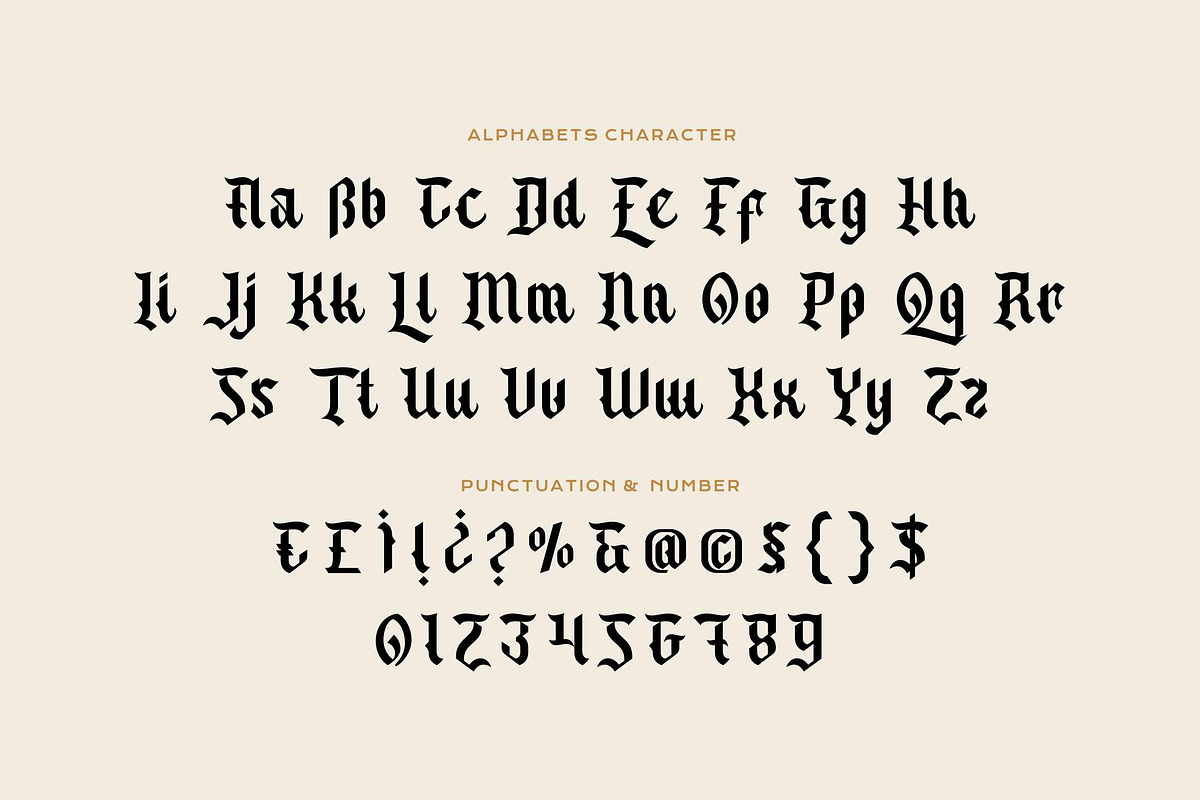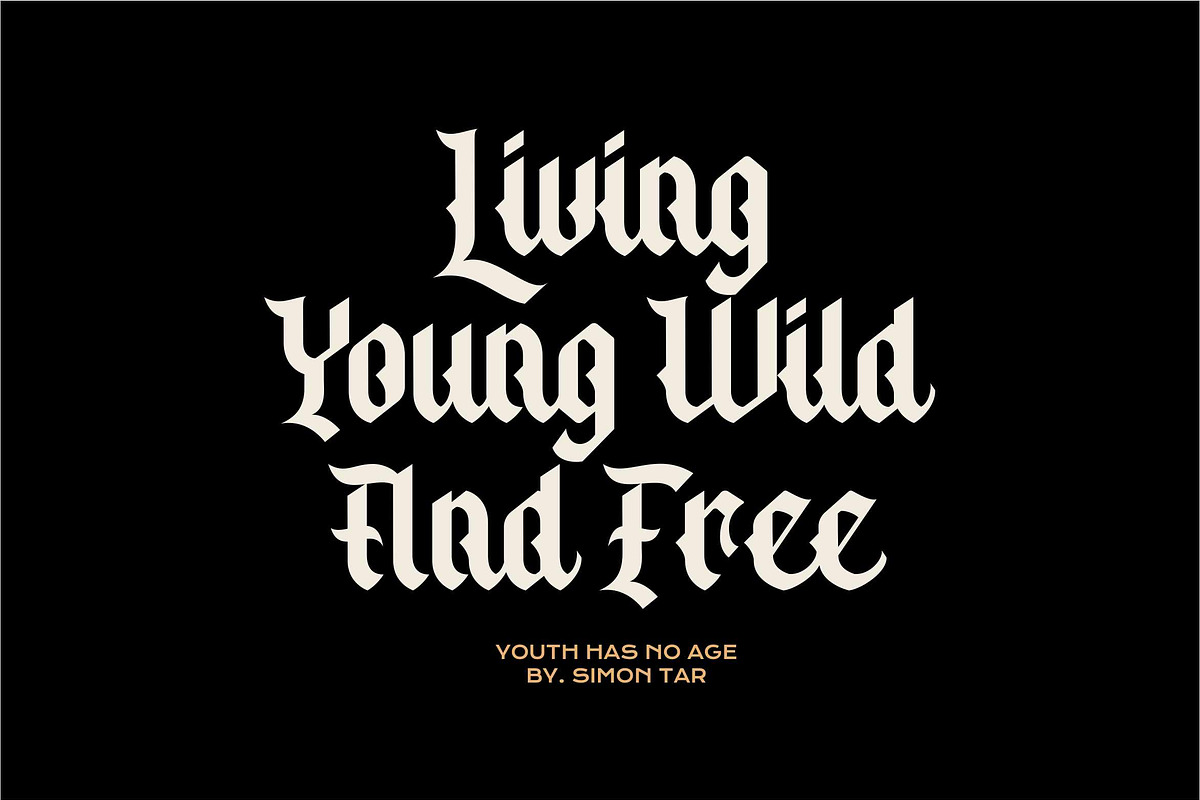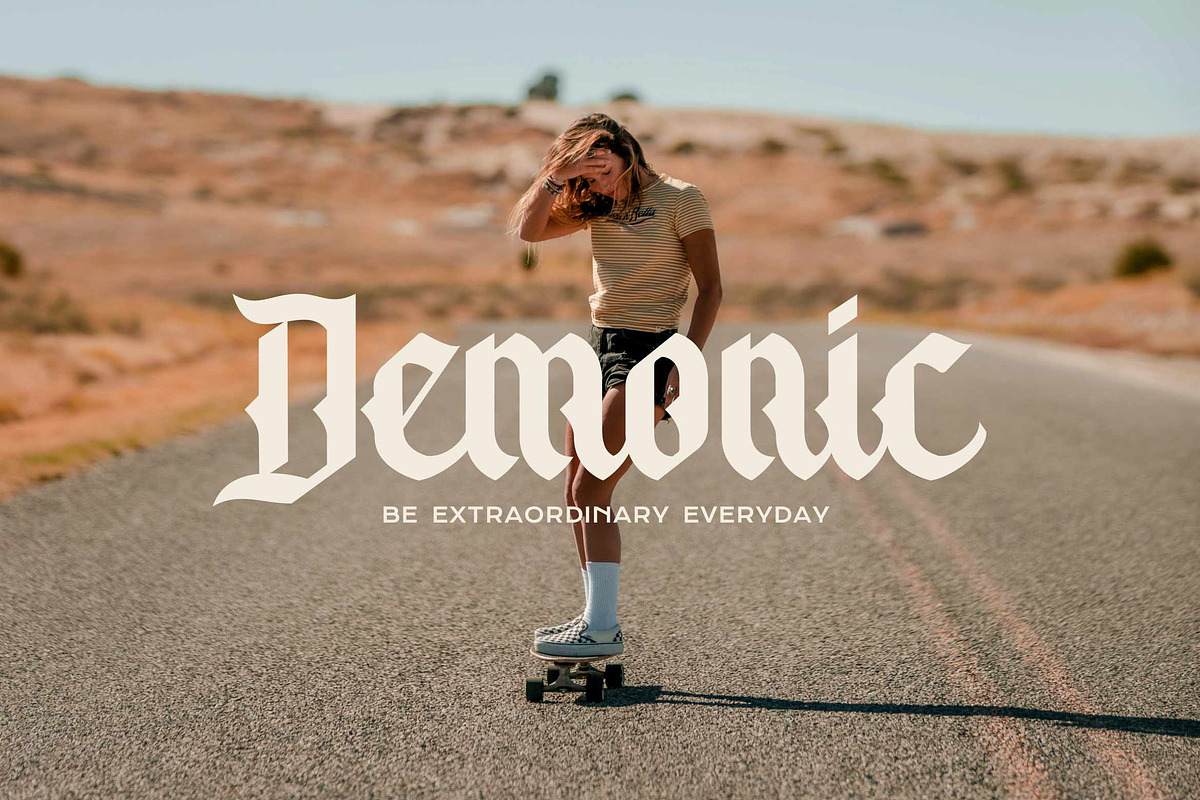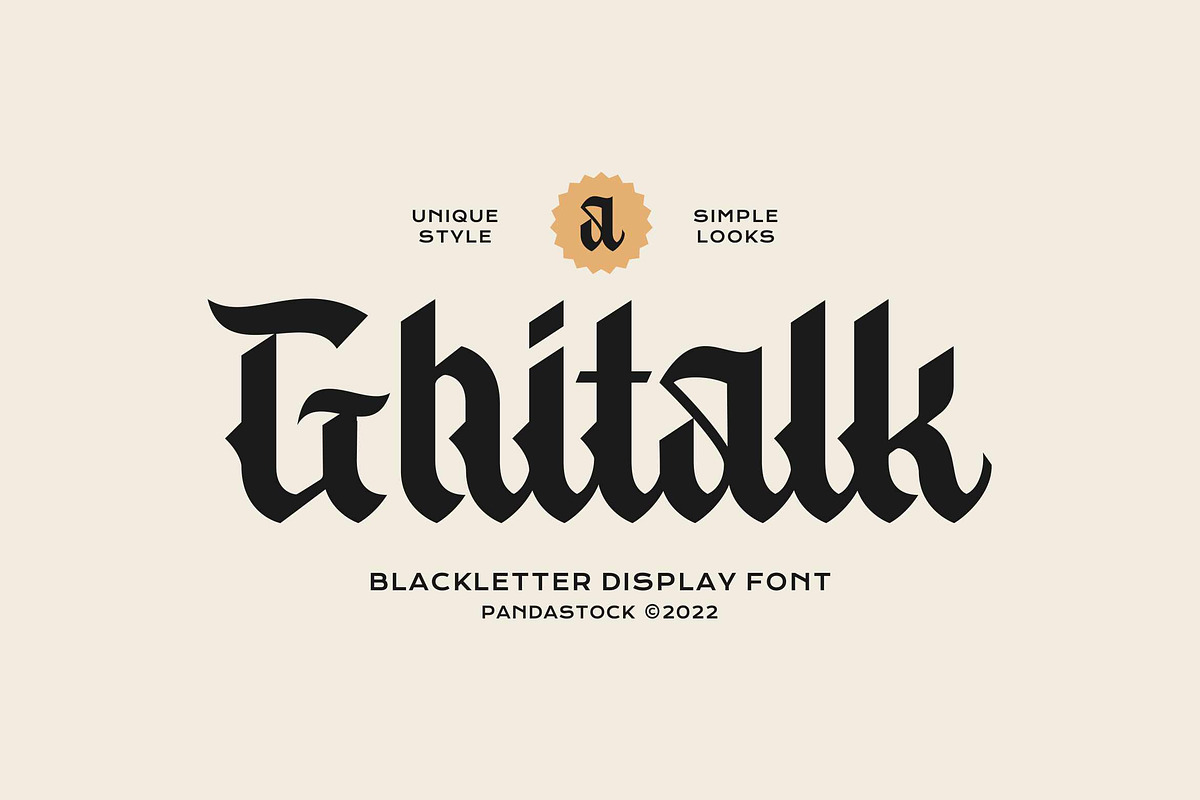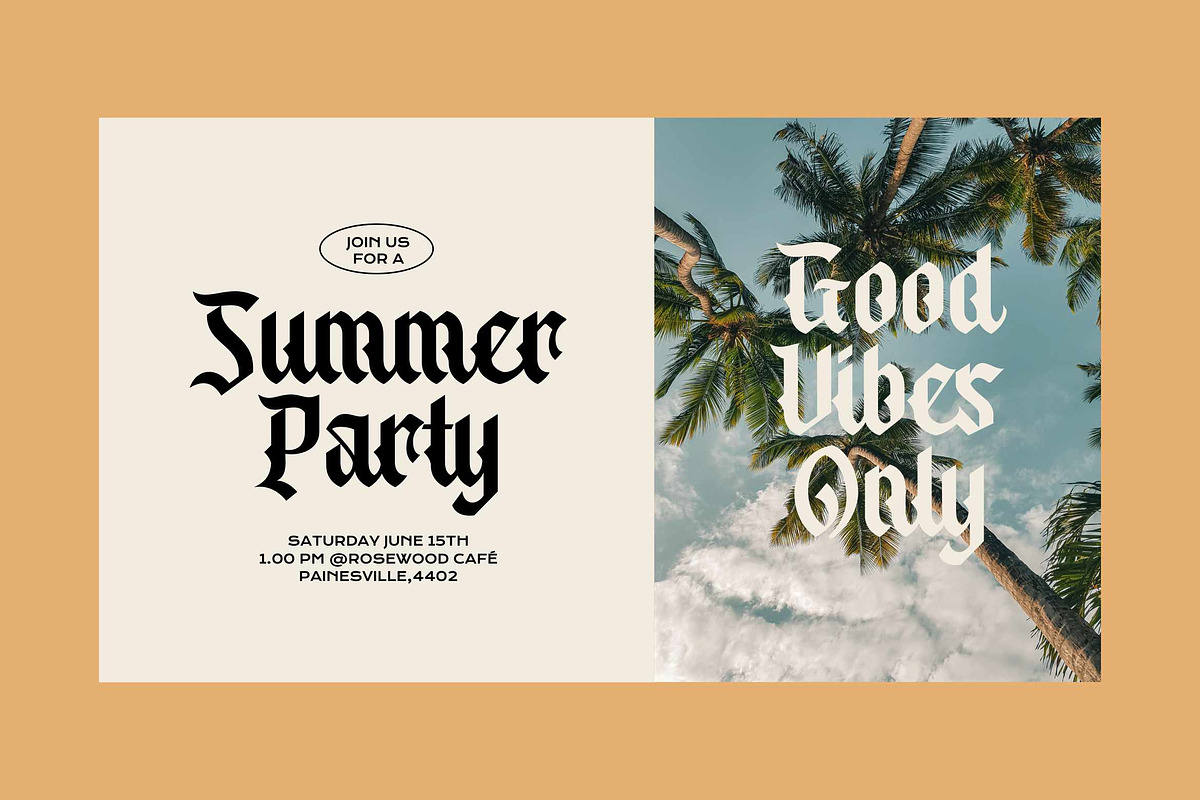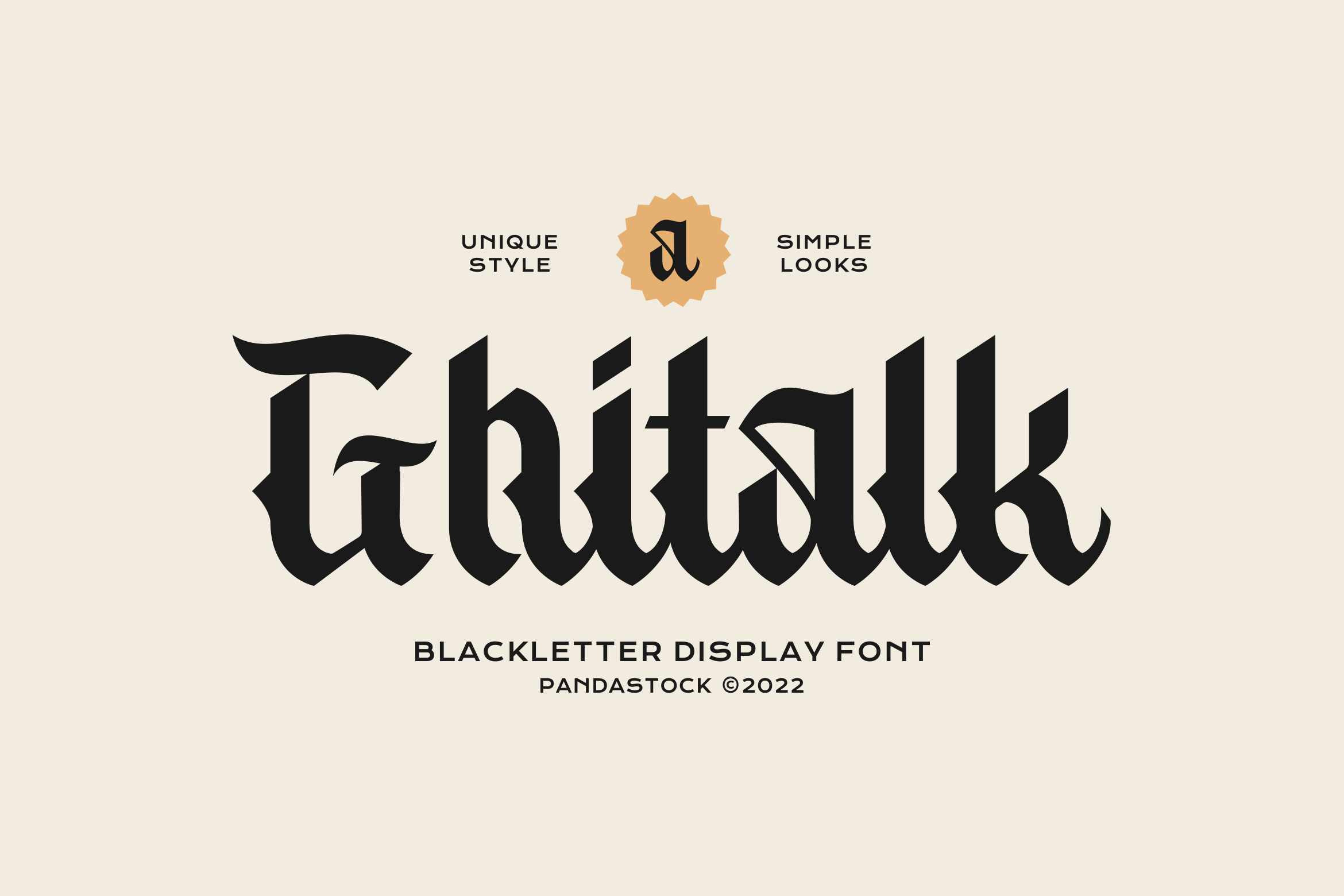
Ghitalk - Modern Blackletter Font
Introducing Ghitalk is a modern blackletter display font that masterfully merges the strength of historic Gothic typography, contemporary aesthetic.
With its sharp serifs, dramatic strokes, and vintage meet modern rhythm, Ghitalk brings a sense of rebellion, tradition, and artistry all in one. Whether you're designing for streetwear, skate culture, nightlife events, or bold editorial layouts, Ghitalk will amplify your message with unforgettable visual impact.
Uppercase and Lowecase Characters.
Numerals and Punctuations.
Alternates and Ligatures.